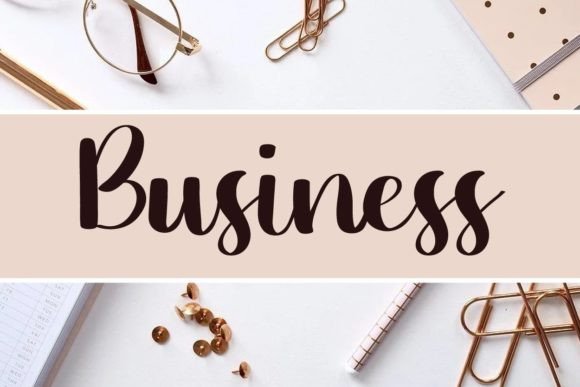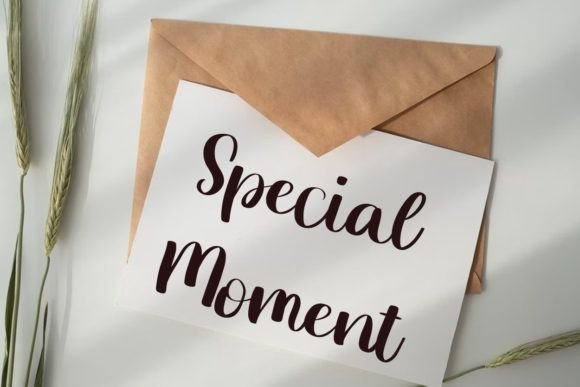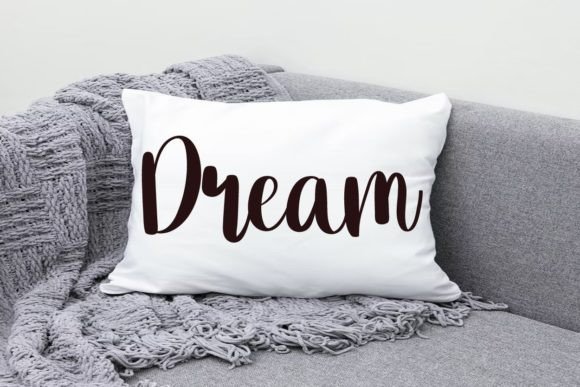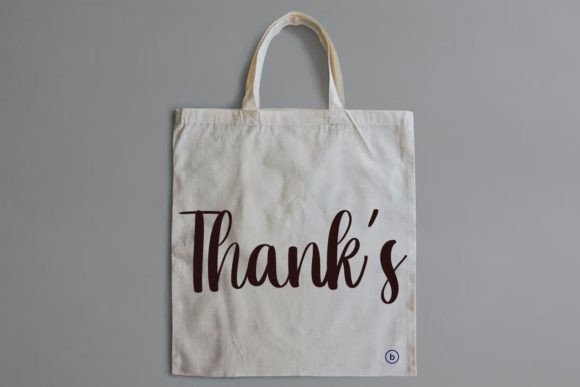
Discover the Charm of Farmhouse Font: Elevate Your Designs with a Fresh and Beautiful Typeface
In the world of design, fonts play a crucial role in conveying the message and aesthetic of a brand or project. For designers and crafters looking for a typeface that exudes a sense of simplicity, uniqueness, and rustic charm, the Farmhouse Font is an excellent choice. This fresh and beautiful font is perfect for various design purposes, including YouTube banners, cover logo mockups, wedding invitations, ID cards, flyers, crafts, and more.
What Makes Farmhouse Font Stand Out?
The Farmhouse Font is designed to bring a touch of rustic elegance to your designs. Its unique and simple style makes it versatile enough to be used across different mediums and projects. Here are some key features that make Farmhouse Font a standout choice:
- Unique and Simple Design: The font boasts a distinctive yet straightforward design that captures the essence of farmhouse style. Its simplicity ensures that it remains legible and impactful across various applications.
- Versatility: Whether you’re working on a YouTube banner, a wedding invitation, or a craft project, Farmhouse Font adapts seamlessly. Its versatility makes it a valuable addition to any designer’s toolkit.
- Rustic Charm: The font’s rustic charm adds a warm and inviting feel to your designs. This is particularly beneficial for projects that aim to evoke a sense of nostalgia or down-to-earth values.
Applications of Farmhouse Font
The Farmhouse Font is incredibly versatile, making it suitable for a wide range of design projects. Here are some of the ways you can use this beautiful font:
- YouTube Banners: Create eye-catching banners that reflect your channel’s personality with Farmhouse Font. Its bold and clear design ensures that your banner stands out.
- Cover Logo Mockups: Use Farmhouse Font to create stunning logo mockups that convey a sense of rustic charm and professionalism.
- Wedding Invitations: Add a touch of elegance and rustic charm to your wedding invitations. Farmhouse Font is perfect for creating beautiful and memorable wedding stationery.
- ID Cards: Design professional and visually appealing ID cards with Farmhouse Font. Its simplicity and clarity make it an excellent choice for ID card designs.
- Flyers and Crafts: From flyers to craft projects, Farmhouse Font can elevate your designs with its unique and simple style.
How Farmhouse Font Can Benefit Your Business
Using Farmhouse Font in your designs can have a significant impact on your business. Here are some ways this font can contribute to your success:
- Professionalism: The font’s clean and simple design conveys professionalism, which is essential for building trust with your audience.
- Brand Identity: Farmhouse Font can help you establish a strong brand identity that resonates with your target audience. Its unique style sets you apart from competitors and makes your brand more memorable.
- Engagement: The rustic charm of Farmhouse Font can evoke emotions and create a connection with your audience. This can lead to increased engagement and a loyal customer base.